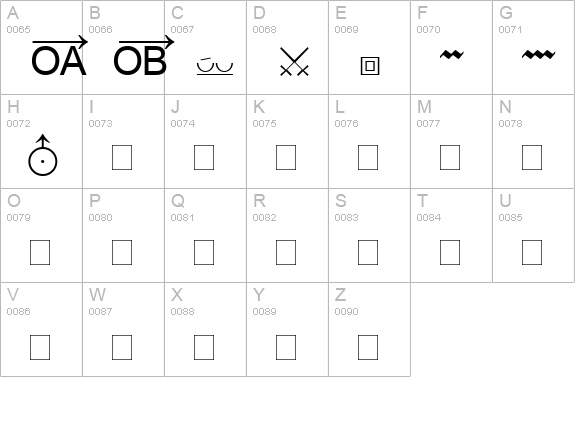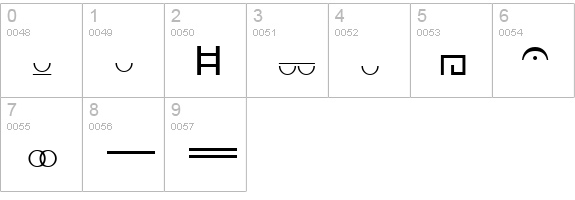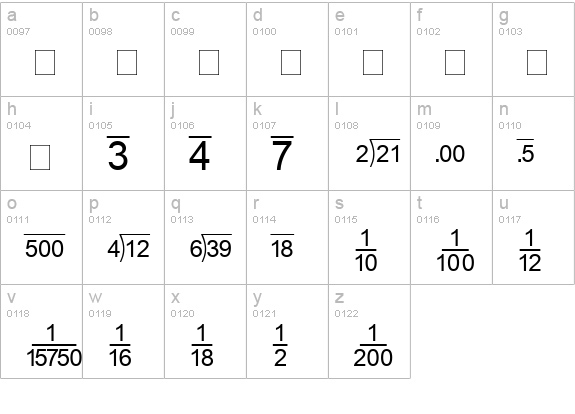
MS Reference Specialty Font Details
Introducing MS Reference Specialty font, a versatile and elegant typeface designed to elevate your design projects with a touch of sophistication. This font features a unique blend of classic and modern elements, making it perfect for a wide range of applications, from branding to editorial design. With its clean lines and sharp angles, MS Reference Specialty font exudes a sense of professionalism and refinement that is sure to make your text stand out. Whether you are creating a sleek corporate logo or designing a stylish magazine layout, this font is the perfect choice to add a touch of class to your work. Best of all, MS Reference Specialty font is available for free download at FontsMarket.com, allowing you to access this premium typeface without breaking the bank. Don't miss out on the opportunity to enhance your design projects with this stunning font – download MS Reference Specialty today and unleash your creativity!